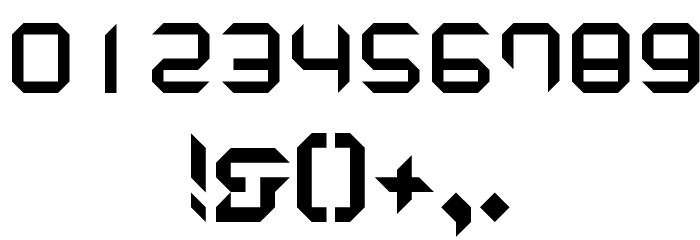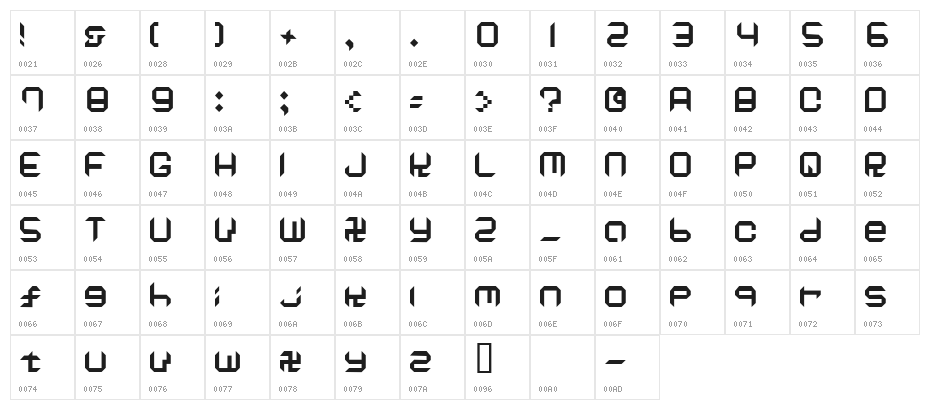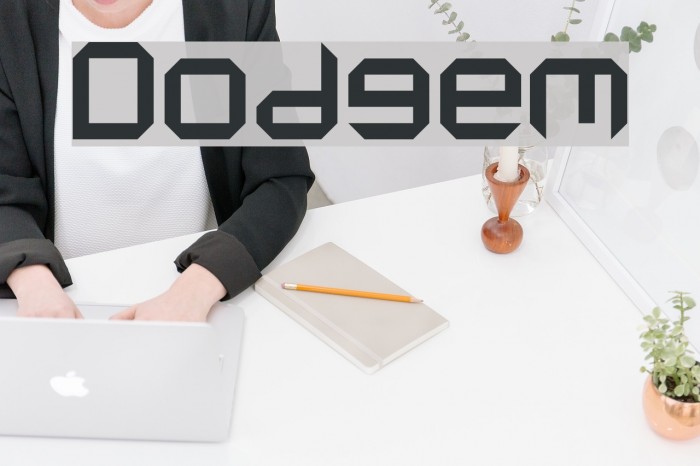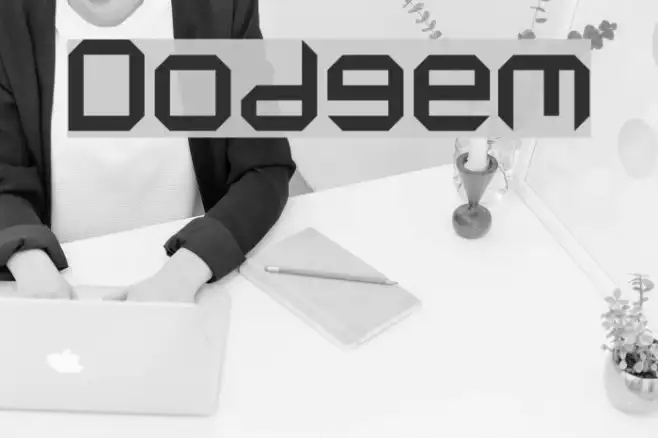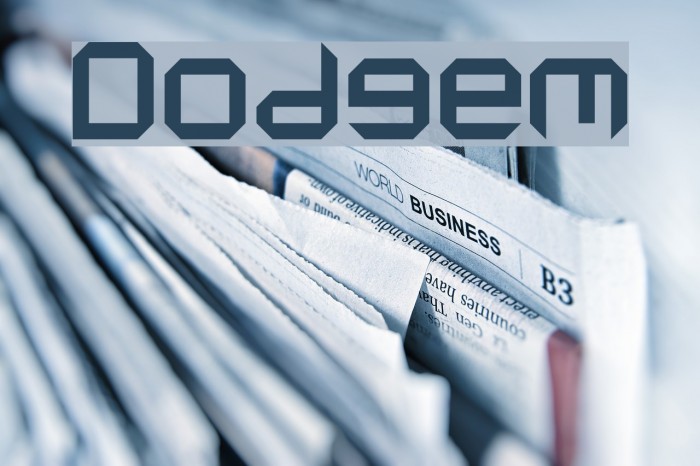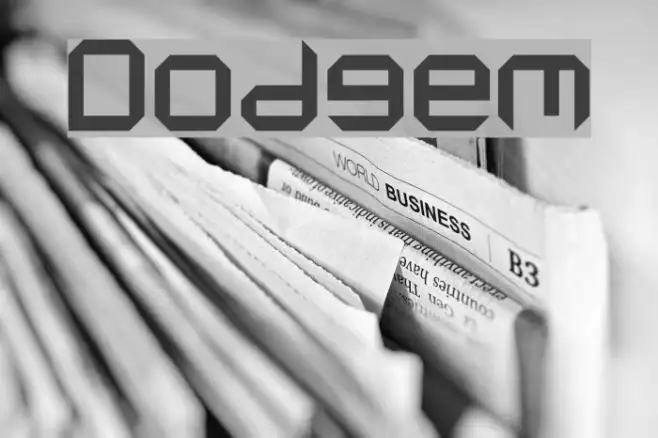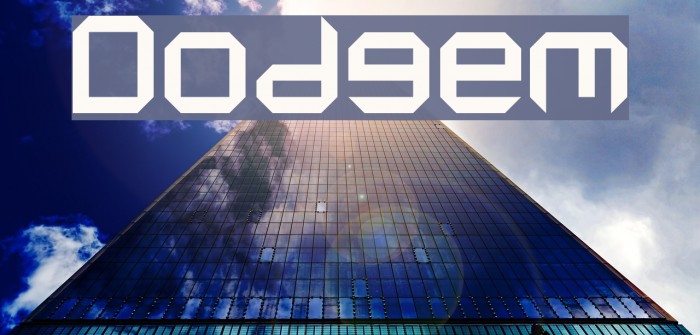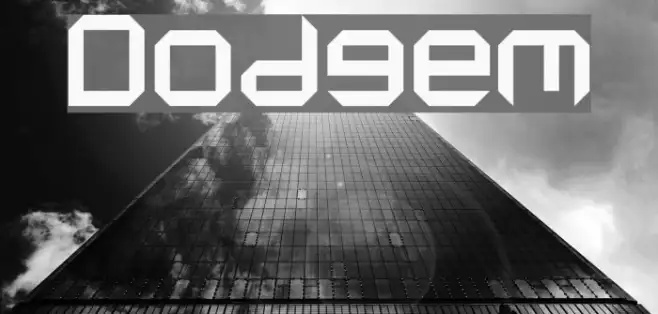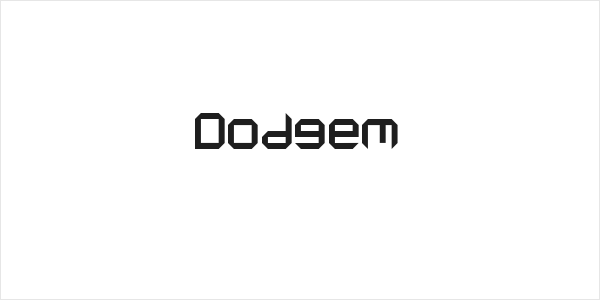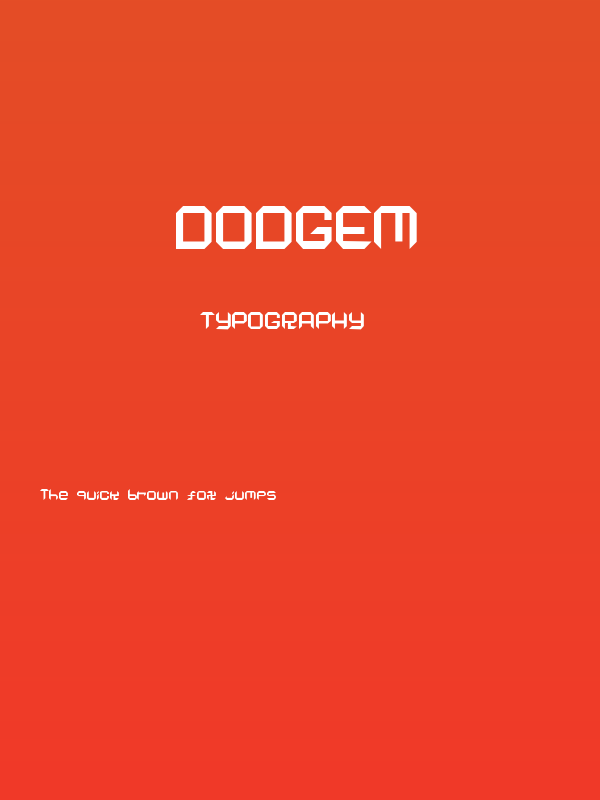
Dodgem Font
Dodgem Description
This font features a bold, geometric design with sharp angles and a futuristic aesthetic. The characters are constructed with a consistent thickness, giving them a strong and impactful presence. The uppercase and lowercase letters maintain a uniform style, with distinct angular cuts that create a sense of movement and energy. The numerals and special characters follow the same design principles, ensuring cohesion across all elements. This font is ideal for projects that require a modern and edgy look, such as technology branding, video game titles, or sci-fi themed designs.
| Proposed Projects | Ideal for technology branding, video game titles, and sci-fi themed designs. |